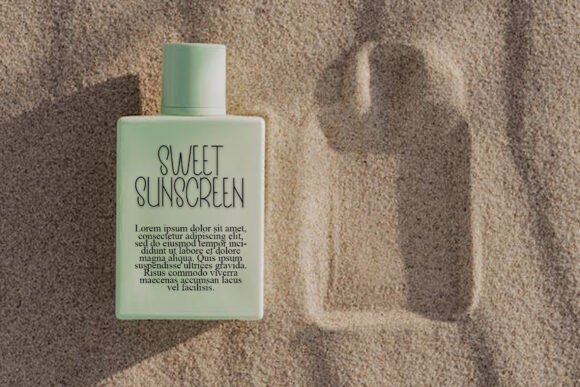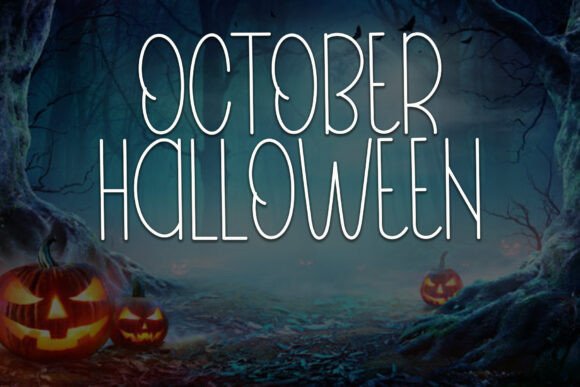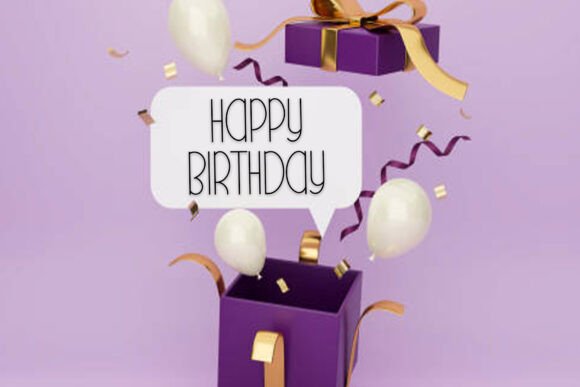
Introduction to Ocean Winter Font
As a designer, there’s nothing quite like the feeling of bringing a creative project to life. The spark of inspiration, the thrill of experimentation, and the satisfaction of seeing your ideas take shape on the page. For many of us, the holiday season is a time of year that sparks a special kind of creative energy. And what better way to capture that magic than with a font that embodies the spirit of the season?
Enter Ocean Winter Font, a festive and merry typeface that adds a touch of enchantment to your designs. With its decorative elements and whimsical flair, this font is the perfect addition to any design project that needs a little extra sparkle. Whether you’re creating greeting cards, gift tags, or holiday-themed graphics, Ocean Winter Font is sure to bring a cheerful and nostalgic ambiance to your words.
Key Features of Ocean Winter Font
- High-quality design resource for creative projects, offering a unique and elegant aesthetic.
- Perfect for winter-themed designs, branding, and packaging, the Ocean Winter Font adds a touch of sophistication and elegance to any creative project.
Honest Review: Ocean Winter Font
I recently stumbled upon the Ocean Winter Font, and I must say it’s a unique addition to any design resource collection. The moment I downloaded it, I was drawn to its beautiful, intricate details.
- High-quality design: The Ocean Winter Font is truly stunning, with a perfect balance of elegance and sophistication.
- Transparent background: The font’s transparent background allows for seamless integration with any background image or color, giving designers more flexibility.
- Limited font styles: While the Ocean Winter Font is beautiful, it’s limited to a single style, which might not be suitable for projects requiring multiple font variations.
- Not suitable for body text: Due to its intricate design, the Ocean Winter Font might not be the best choice for body text, as it can be difficult to read.
Overall, the Ocean Winter Font is an excellent addition to any design collection, perfect for creative projects requiring a touch of elegance and sophistication. While it has some limitations, its beauty and versatility make it a valuable resource for designers.
The Ocean Winter Font is a high-quality, free download that offers a unique and creative design resource for various projects. With its transparent background, this font can be easily incorporated into different design elements.
The Ocean Winter Font is suitable for a variety of projects, including:
- Business cards and marketing materials
- Social media graphics and advertising
- Personal projects, such as photography or art portfolios